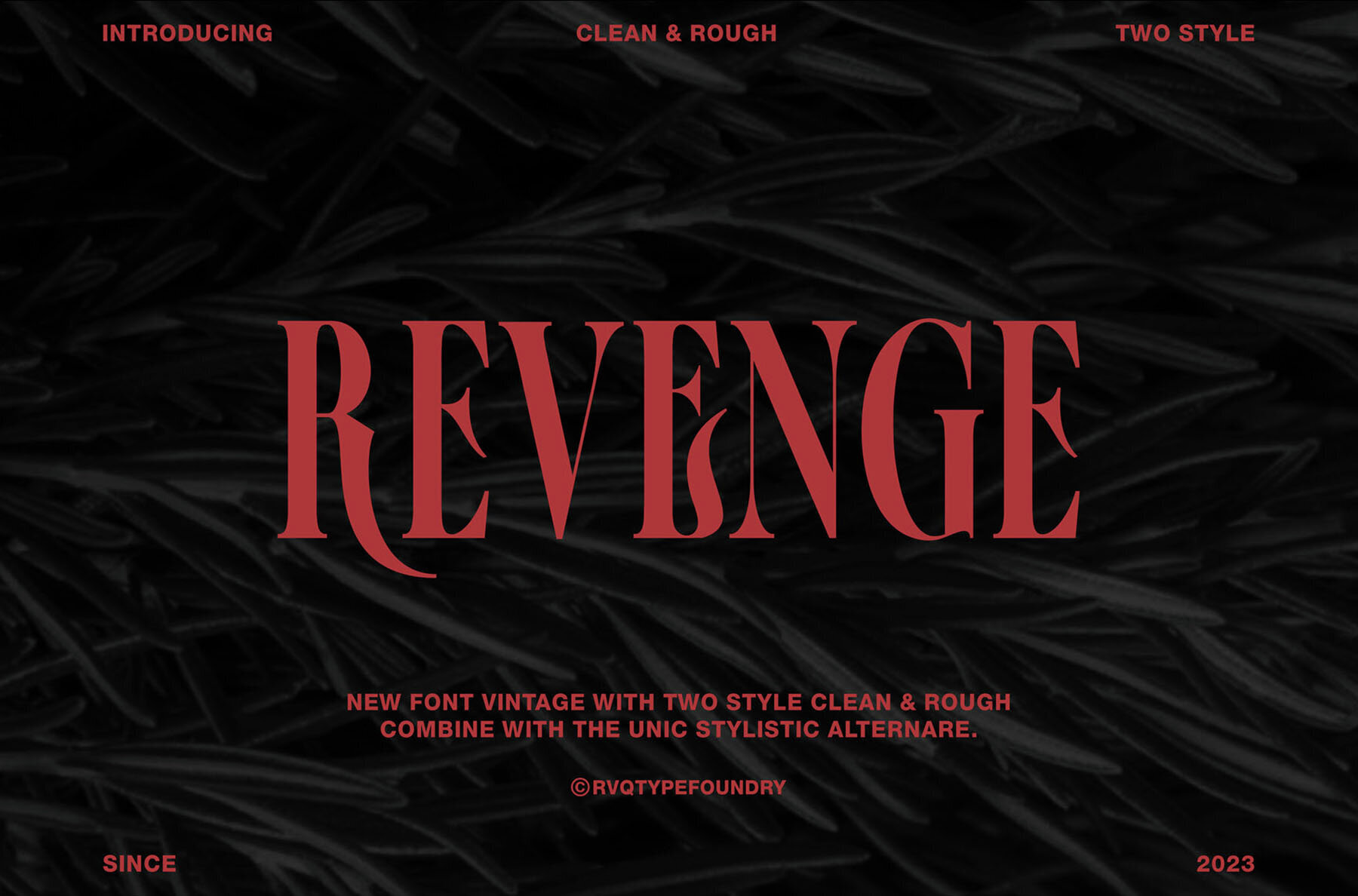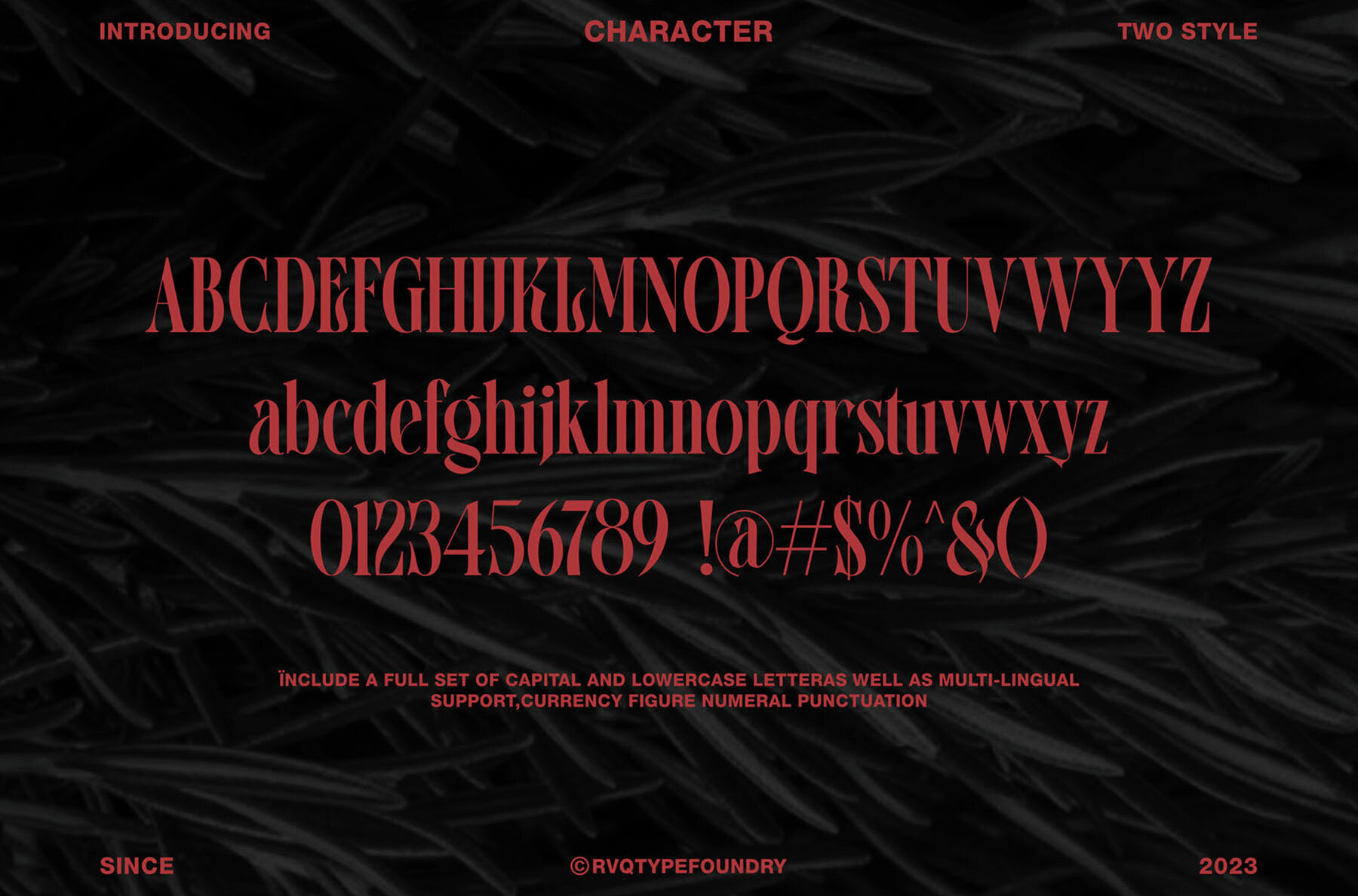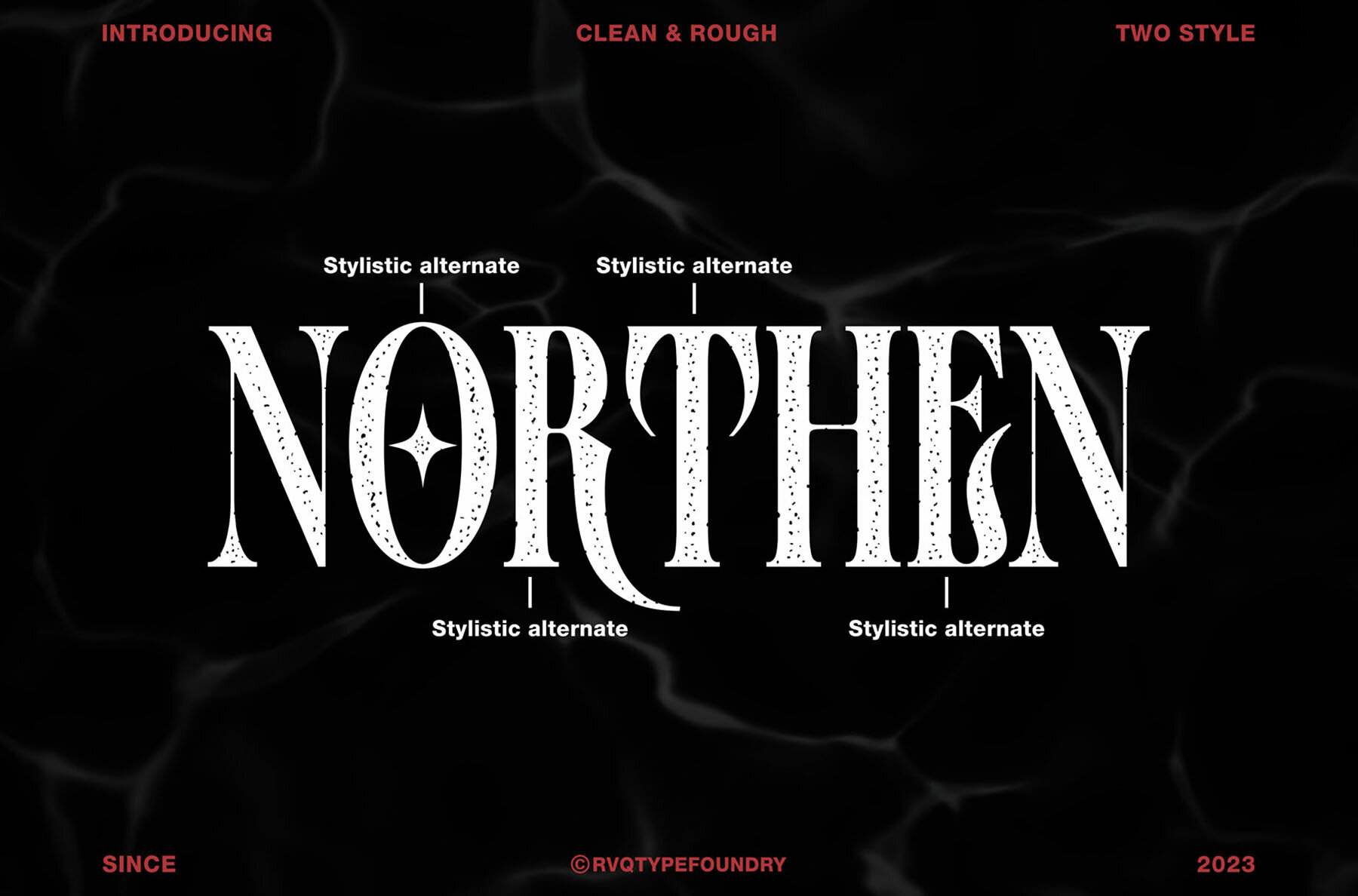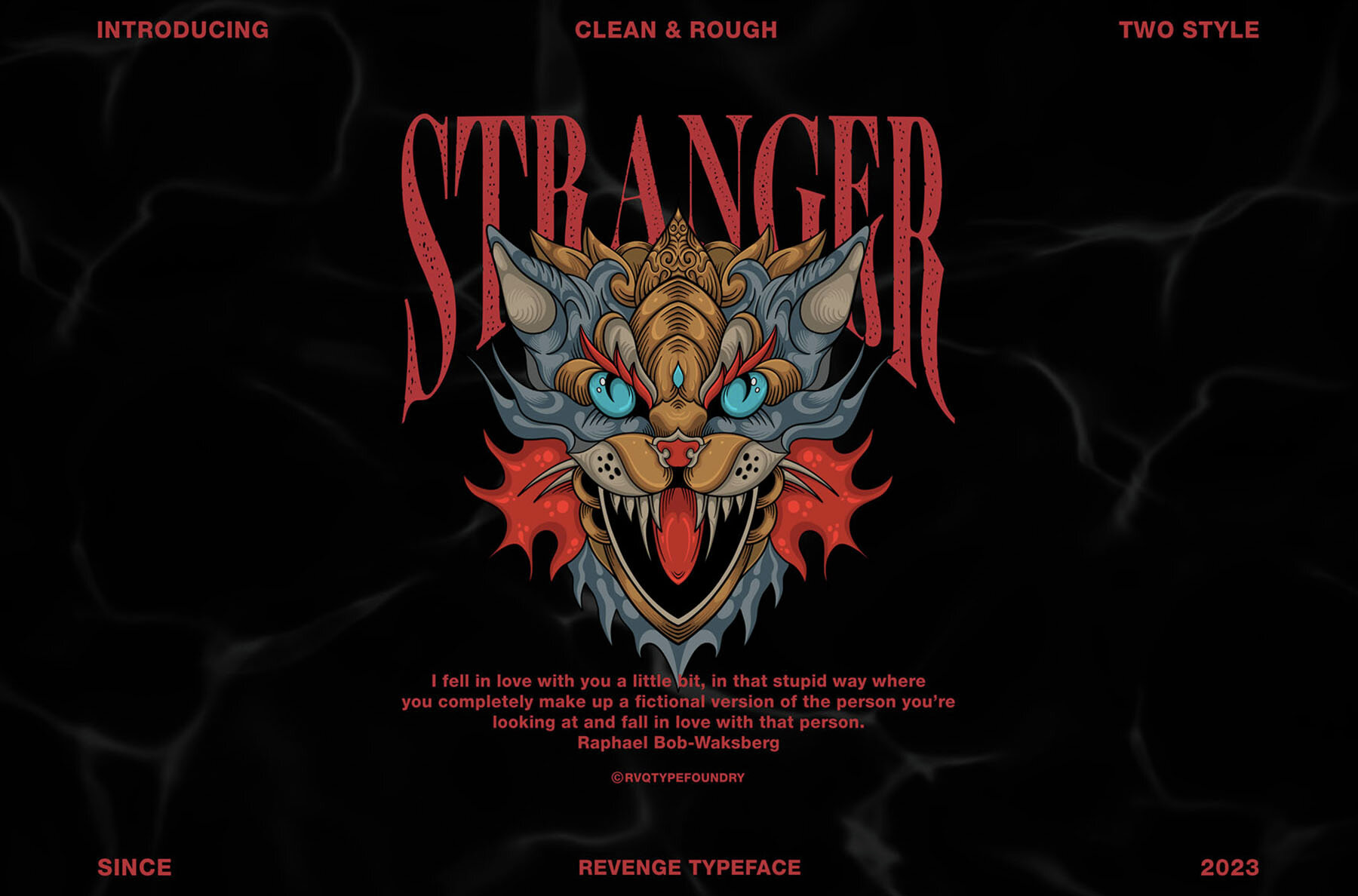
Revenge Font
The Revenge typeface by Rvq Type Foundry offers dual styles: clean and rough. Designed as a versatile font, it allows for creative combinations by mixing words with alternative glyphs. This typeface includes a full set of uppercase and lowercase letters, along with multilingual support, currency figures, numerals, punctuation, and extra glyphs.Revenge Typeface: Versatile Styles by Rvq Type Foundry